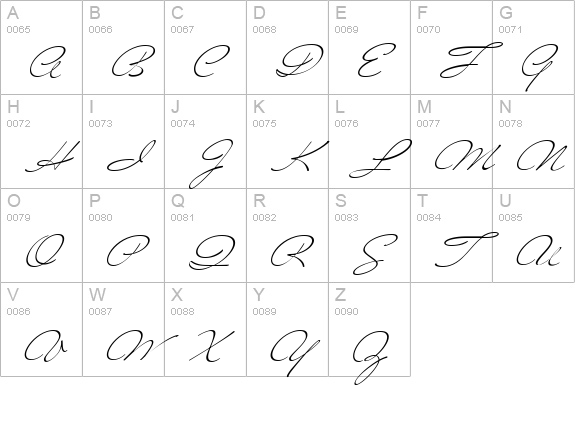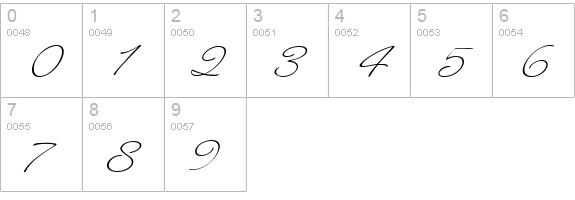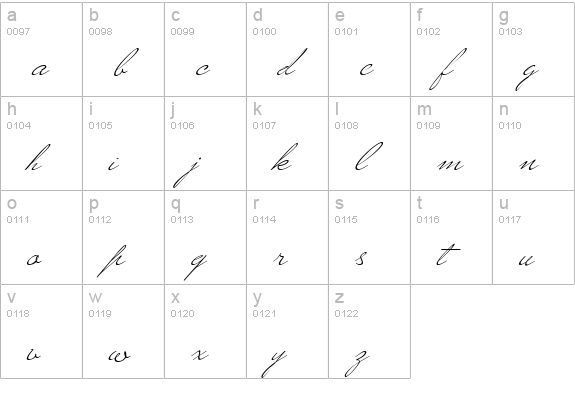
MrBlaketon Font Details
MrBlaketon font is a stunning display typeface that exudes elegance and sophistication. With its sleek lines and stylish curves, this font is perfect for adding a touch of class to any project. Its versatile design makes it suitable for a wide range of applications, from branding to editorial design. What sets MrBlaketon font apart is not just its aesthetic appeal, but also the fact that it is available for free download at FontsMarket.com. This means that you can easily access and use this beautiful font in your projects without any cost. Whether you're working on a personal project or a professional design, MrBlaketon font is a fantastic choice that will elevate your work to the next level.